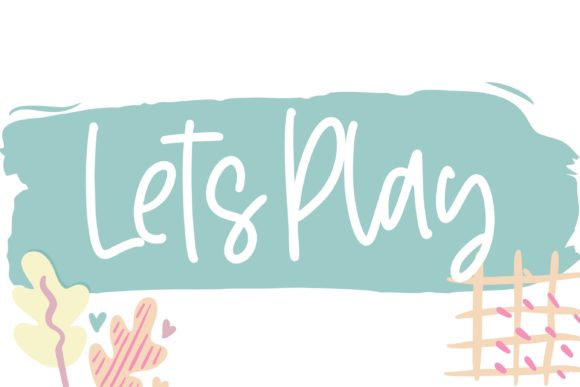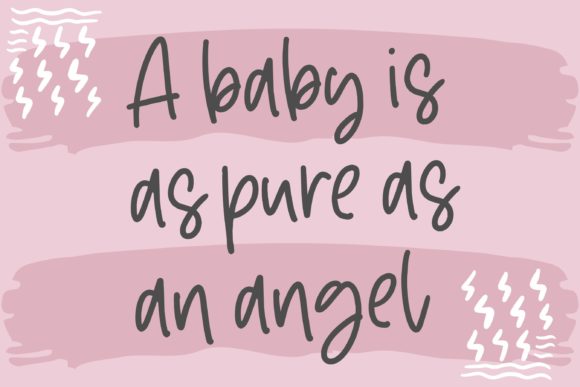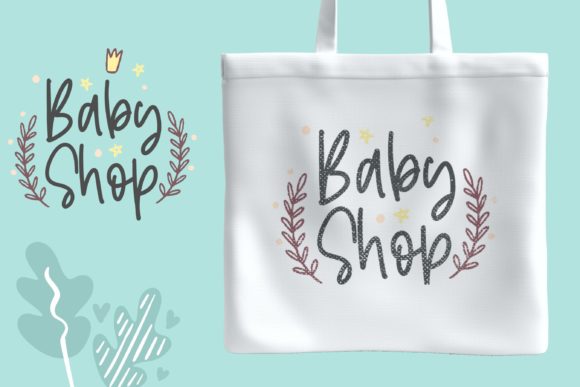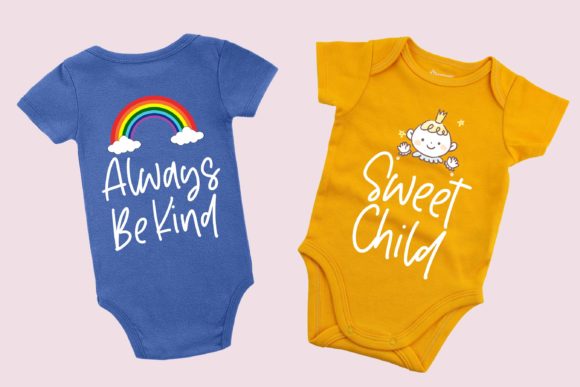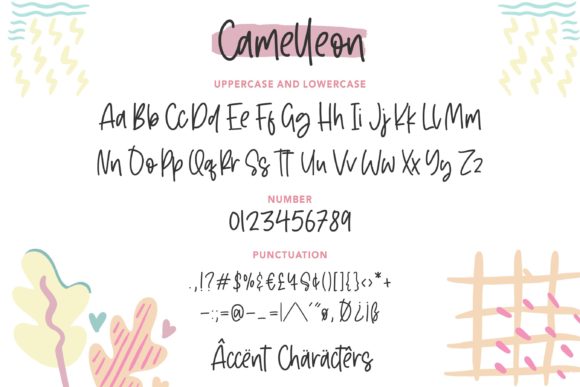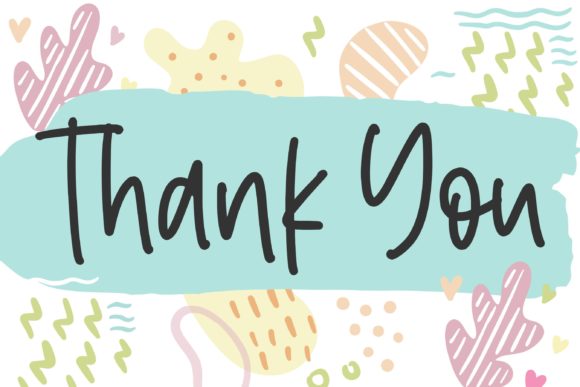
Camelleon Font
About Camelleon Font
Camelleon is a monoline handwritten font. Its casual charm makes it appear wonderfully down-to-earth, readable and, ultimately, incredibly versatile. Camelleon will look outstanding in any context, whether it’s being used on busy backgrounds or as a standalone headline!